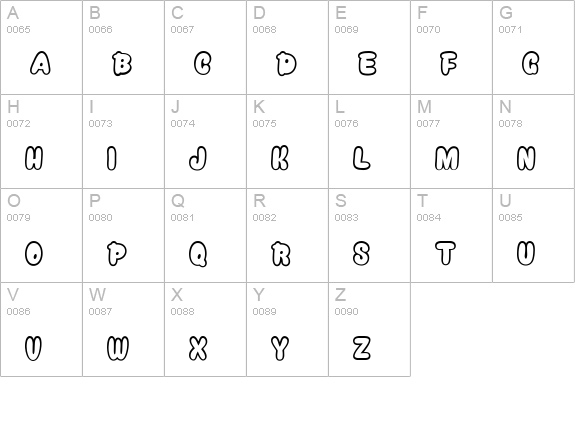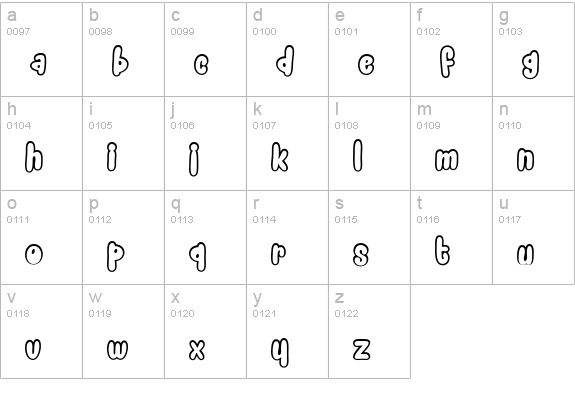
Introducing Snacker Comic Personal Use Only font, a delightful and whimsical typeface that is sure to bring a smile to your face! This playful font is perfect for adding a touch of fun and lightheartedness to your designs. What makes Snacker Comic truly special is that it is completely free for personal use! Yes, you heard it right - this incredible font can be downloaded and used without any cost. It's a fantastic opportunity to add a unique and eye-catching element to your personal projects. With its charming and expressive letterforms, Snacker Comic is ideal for creating eye-catching headlines, playful logos, or even designing greeting cards that are sure to make someone's day. Whether you're working on a children's book, a party invitation, or simply want to inject some creativity into your designs, this font is the perfect choice. To access Snacker Comic, simply head over to FontsMarket.com, where you can freely download this amazing font. It's just a few clicks away from adding a touch of joy and whimsy to your creative endeavors. So, why wait? Discover the wonders of Snacker Comic Personal Use Only font and let your imagination run wild. Get ready to captivate your audience with its unique style and bring your designs to life. Download Snacker Comic today and let the free-flowing fun begin!